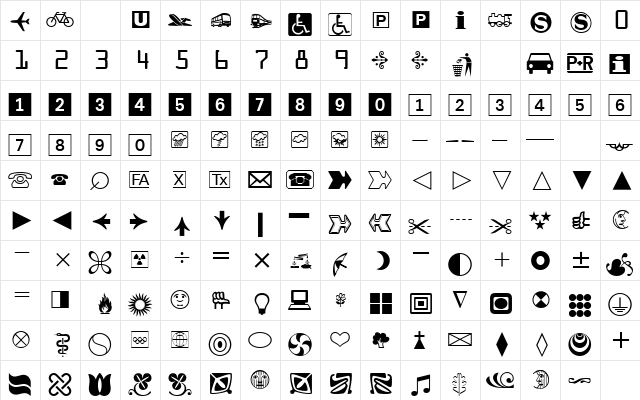
Linobats Regular
Design Context for Linobats Typeface
Linobats takes a measured approach to typography — its balanced proportions and neutral character make it a reliable workhorse for both digital and print work.